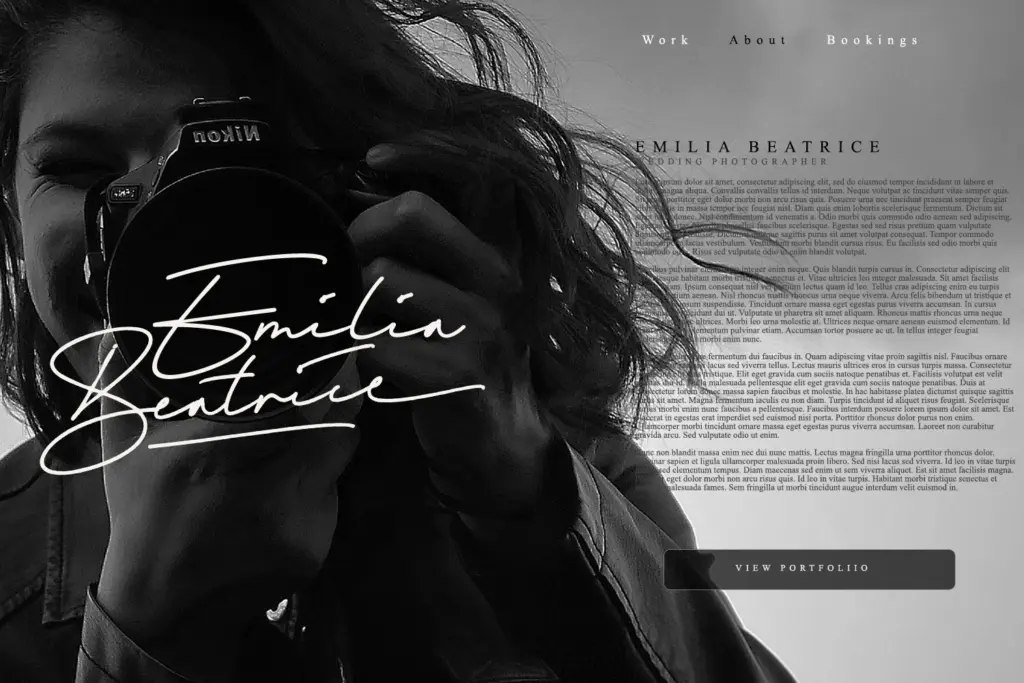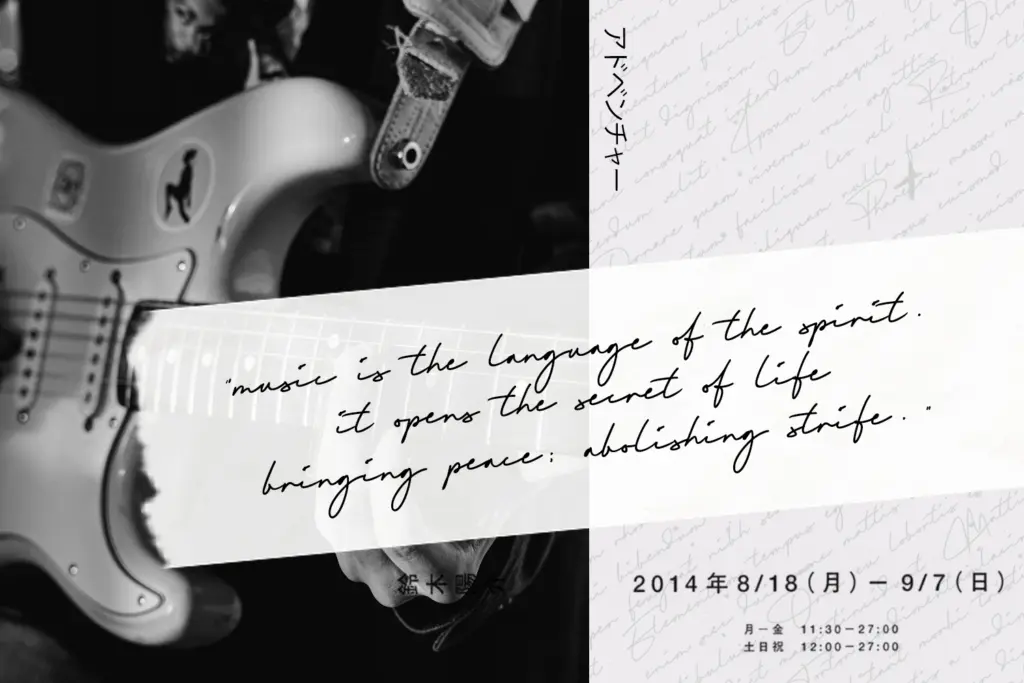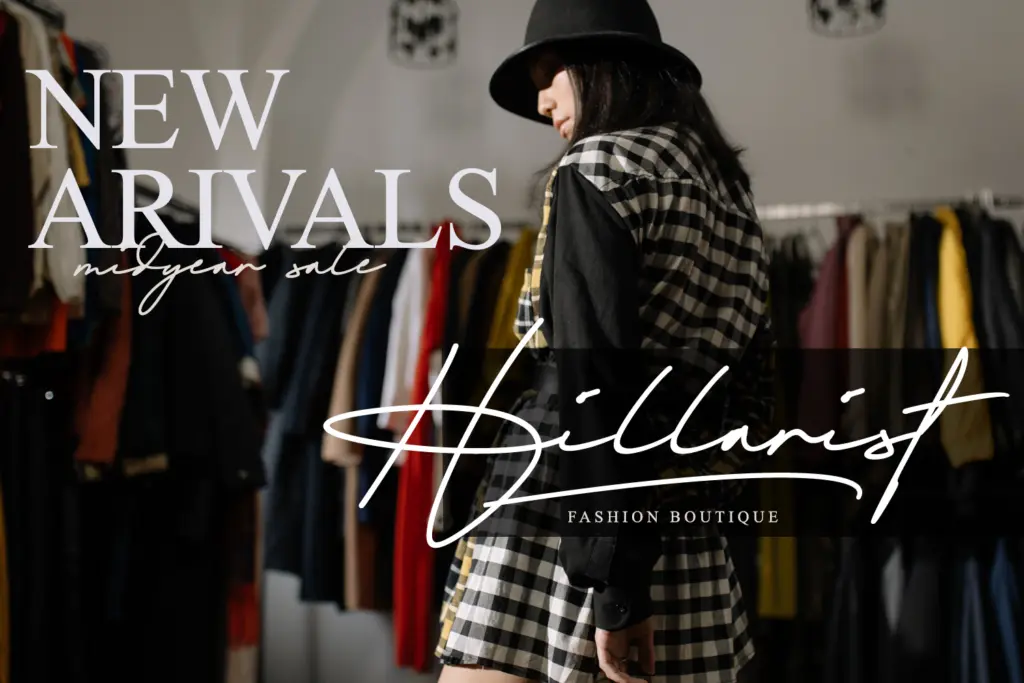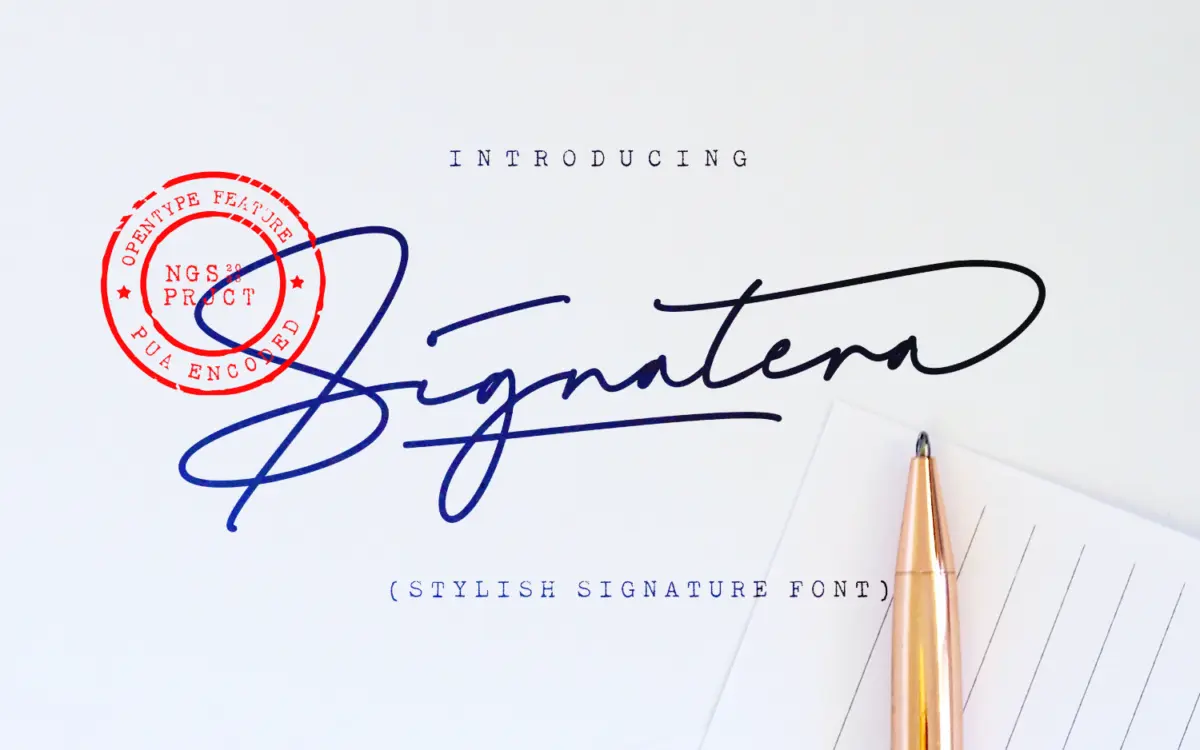
Signatera belongs to the crowded family of monoline signature scripts — the kind built to look like a fast, confident hand rather than a formal calligraphic hand. The strokes stay close to a single weight throughout, with only mild thickening at the joins, which keeps the overall texture light rather than showing off contrast the way a broad-nib script would. Letters lean forward at a consistent angle and connect in long, loose runs, giving the impression of a name written in one continuous motion.
The x-height sits low, and ascenders and descenders swing out generously, which is where the font gets its signature quality — those long entry and exit strokes are doing most of the personality work. It’s a style you’ve likely seen before on packaging and wedding stationery, and Signatera doesn’t try to reinvent that territory. What it does is execute it cleanly: the joins are consistent, the spacing between letters is even, and nothing feels rushed or unfinished in the drawing.
The set covers uppercase and lowercase, numerals, standard OpenType punctuation, and accented characters for multilingual typing, so it will handle European-language names and headlines without falling back to unaccented substitutes. Ligatures and a stylistic alternate set are included, which matters more in a script like this than in most typefaces — swapping in an alternate can fix an awkward collision between a capital and the letter that follows, or replace a connector that reads oddly in a particular word.
That said, scripts built this way are word-sensitive. Some combinations of letters will sit better than others, and getting a specific word or name to look right usually means testing the alternates rather than trusting the default typing. This isn’t a flaw unique to Signatera — it’s the nature of connected script fonts — but it’s worth knowing before you commit to using it at a fixed size across a whole product line without checking every instance.
This is a font for a single word or short phrase, not for setting paragraphs. A logotype, a monogram, a signature line on a certificate, a name on a wedding invitation, the tagline under a photography watermark — these are the jobs it’s built for. At those sizes and in that role, the looseness of the joins and the long flourishes read as intentional rather than illegible.
Push it into smaller sizes or longer strings — a subheading, a pull quote, a paragraph of body text — and the connected strokes start to blur together, and the wide letter-spacing that flatters a single name becomes visual noise across a sentence. Pair it with a plain sans or slab for supporting text rather than asking it to do the whole job. Used for what it’s built for — a name, a mark, a short line of type meant to look handwritten — Signatera is a competent, unfussy choice.
- Consistent, even joins across long connected letter runs
- Multilingual accented character support for names beyond English
- Ligatures and stylistic alternates to fix awkward letter pairings
- Connected strokes blur together at small sizes or in longer text
- Stylistically familiar territory with little to distinguish it from other signature scripts
Signatera is a clean, well-executed monoline signature script that does exactly what it promises for logos, monograms and short phrases. It won't surprise you stylistically, and it needs careful handling of its alternates to avoid awkward letter collisions, but for the narrow job it's built for it performs reliably.